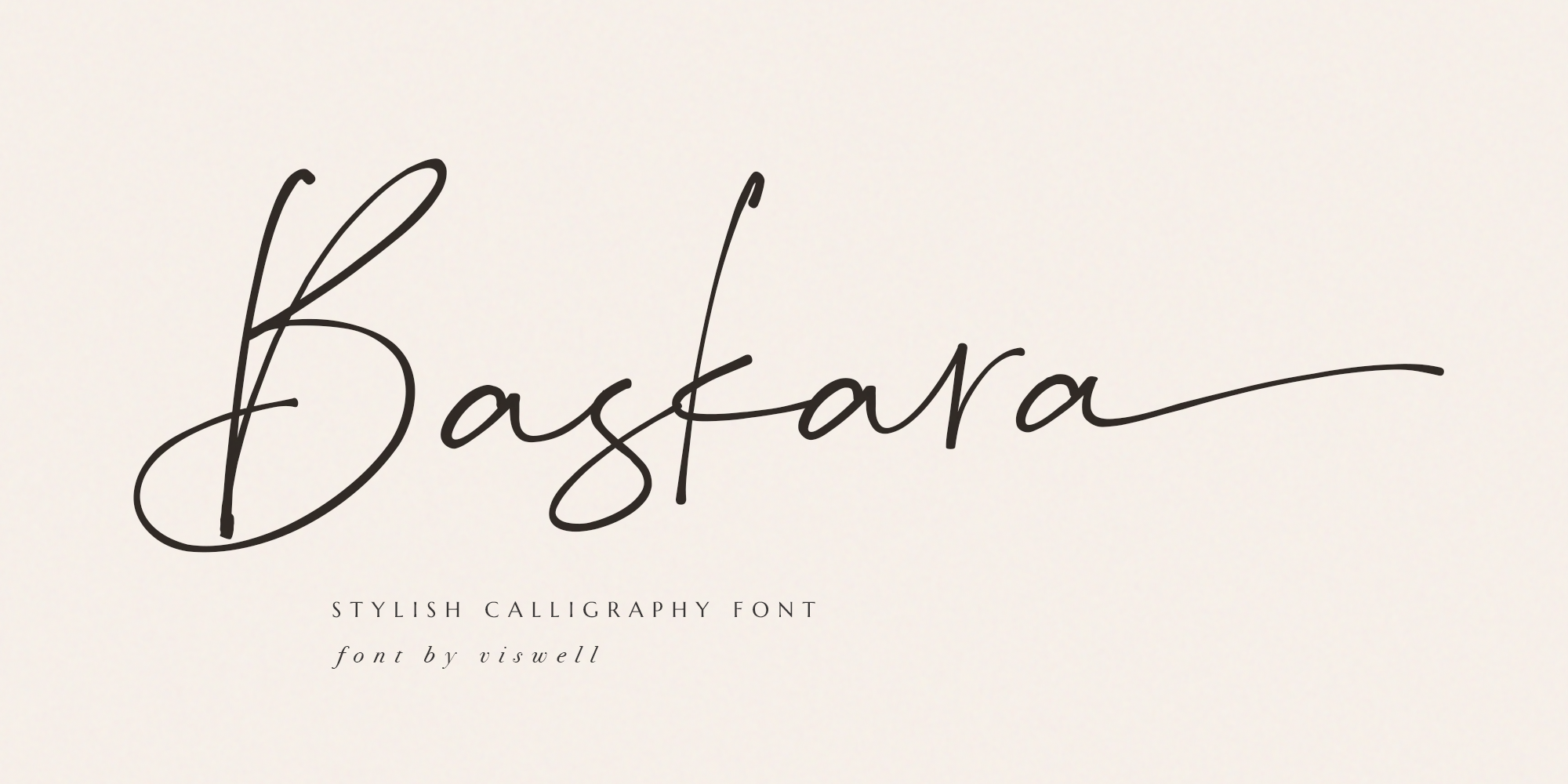
Baskara Font Free Download is a bold and stylish script typeface that combines modern calligraphy with a dynamic, hand-lettered feel. Its flowing strokes and elegant curves make it an excellent choice for branding, wedding invitations, product packaging, social media posts, and promotional materials that require a personal yet sophisticated touch.
The font’s expressive design offers excellent readability while delivering a strong artistic presence. Baskara’s versatile style allows it to adapt seamlessly across a variety of creative projects, enhancing visual appeal with a combination of elegance, energy, and creativity.
Baskara is a standout choice for designers looking to bring modern elegance, creativity, and charm into their work.